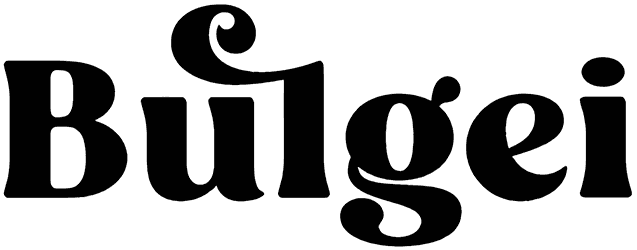
Bulgei Font
Since the best selection of lettering can illustrate your specific classic taste, Bulgei font can become one of your options. This serif font would work great in bolding your words and can still keep them humble. You can use this basic font for countless projects, like a café sign or a shop tote bag, and keep their texts simple but salient.